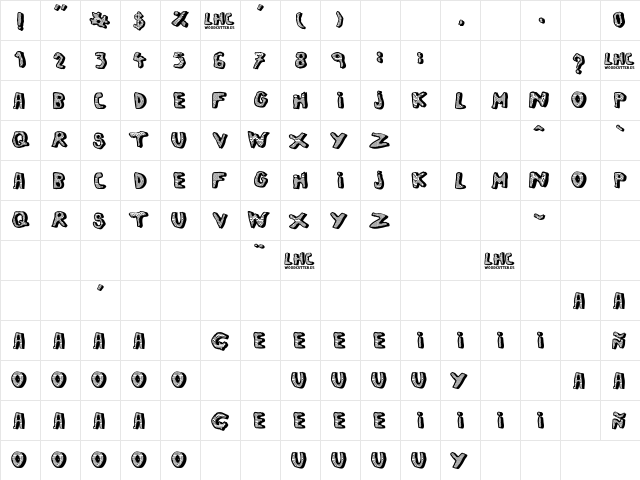
left hand comic Regular
| Designer | Woodcutter Manero |
Design Context for left hand comic Typeface
left hand comic trades formality for fun, with bouncy, characterful letterforms that bring warmth and energy to any project.
Great for children's books, toy packaging, family event branding, and casual consumer-facing design.
Font Pairing: Pairs well with a rounded or humanist sans for body copy, maintaining the friendly tone without relying on left hand comic to carry extended reading.
Pro Tip: Avoid using left hand comic for long passages of text — it works best for headlines, labels, and short calls to action.